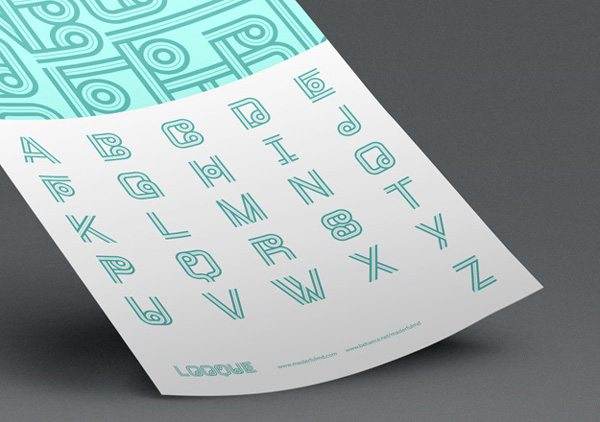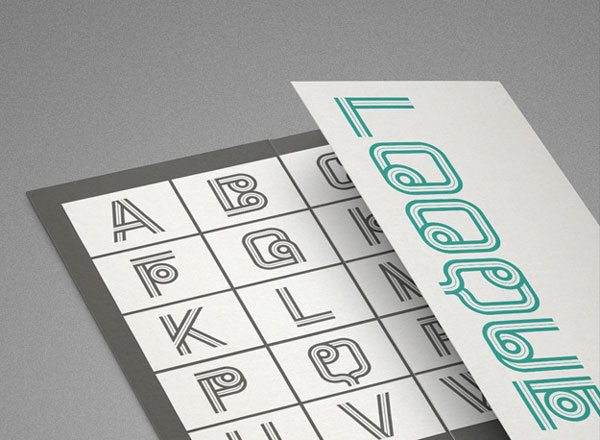
Free Font Of The Day #103 – LOOQUE Font
LOOQUE Font
The  Font  is a free decorative typeface based on linear patterns with circular and angular edges. Designed by MASTERFULMD.